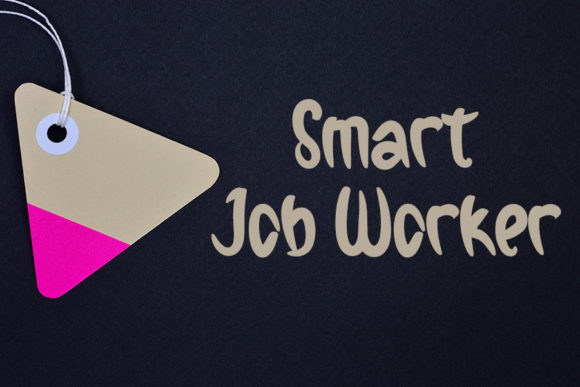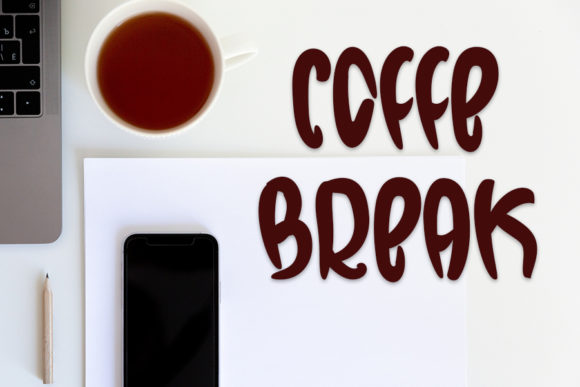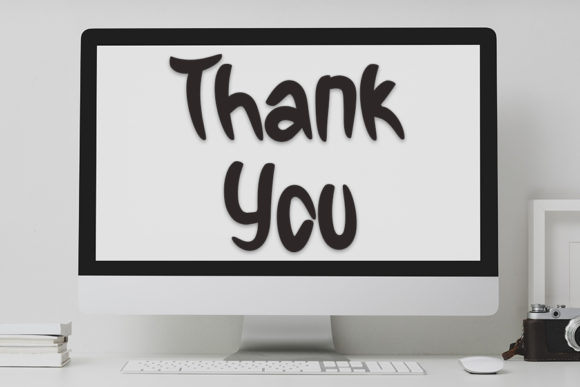
The Birth of a New Font: Unveiling Baby Smart Hello Font
There’s something special about creating something from scratch – the spark of an idea, the thrill of bringing it to life, and the satisfaction of seeing it take shape. For designers, this moment is a reminder that even the smallest details can make a big impact. Take, for instance, the humble font – a design element that can elevate or undermine an entire project. That’s why the arrival of Baby Smart Hello Font is such a significant event.
This beautiful handwritten font exudes a relaxed, down-to-earth charm that’s perfect for designers seeking to add a personal touch to their work. With its casual elegance and incredible versatility, Baby Smart Hello Font is poised to become a go-to choice for creatives looking to make a lasting impression.
Baby Smart Hello Font Key Features
- Font Styles: The font comes in 4 different styles: Regular, Bold, Italic, and Bold Italic, providing flexibility for various design needs.
- Character Set: The font includes a wide range of characters, including Latin, Cyrillic, and Greek alphabets, making it suitable for various languages.
- Unique Characteristics: The font features a unique, playful design with rounded edges and smooth curves, making it perfect for children’s products and educational materials.
Baby Smart Hello Font Review
Overall, I’d say the Baby Smart Hello Font is a decent addition to any designer’s toolkit. ✨ It’s clean, modern, and does a great job of conveying a sense of innocence and wonder. The font’s curves and rounded edges make it perfect for projects related to kids, parenting, or education.
- Works well for titles and headings, providing a clear and readable text.
- Great for creating a sense of playfulness and whimsy in your designs.
- Highly legible, even at small font sizes.
However, there are a few limitations to keep in mind. ⚠️ The font can feel a bit too childish at times, which might not be suitable for more mature or professional projects. Additionally, the font’s consistency can be a bit inconsistent, with some characters looking slightly more rounded than others.
Overall, I’d give the Baby Smart Hello Font 3.5 out of 5 stars. While it’s not a game-changer, it’s a solid choice for projects where you want to convey a sense of youth and innocence. With a bit more refinement, I think this font could be a real standout.
Use the “Baby Smart Hello Font” to add a playful touch to your designs.
Combine it with other fonts for a unique and creative look.
Experiment with different font sizes and colors to achieve the desired effect.
Use the “Baby Smart Hello Font” for:
Children’s party invitations and decorations.
Baby shower invitations and decorations.
Children’s book covers and illustrations.
Marketing materials for kids’ products and services.